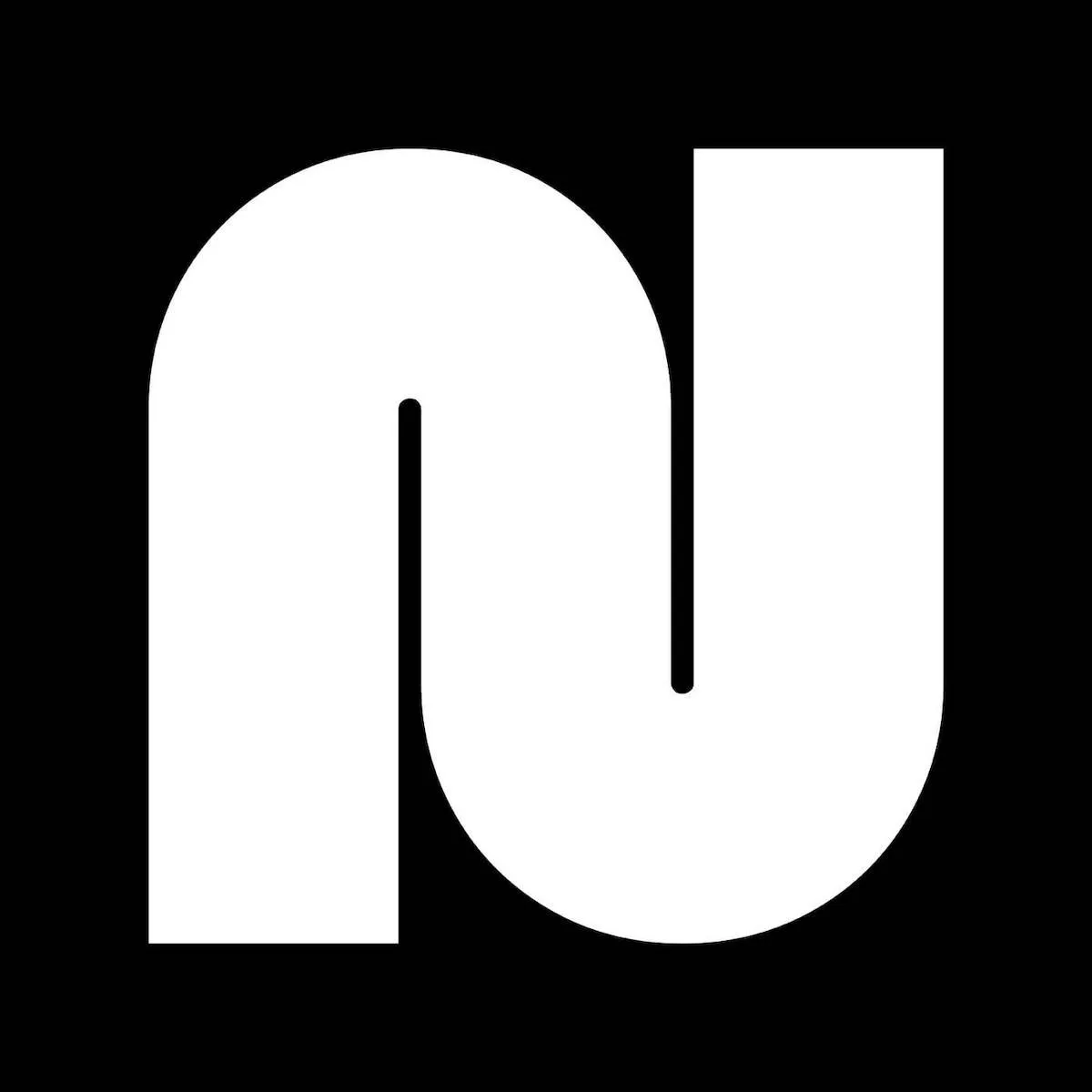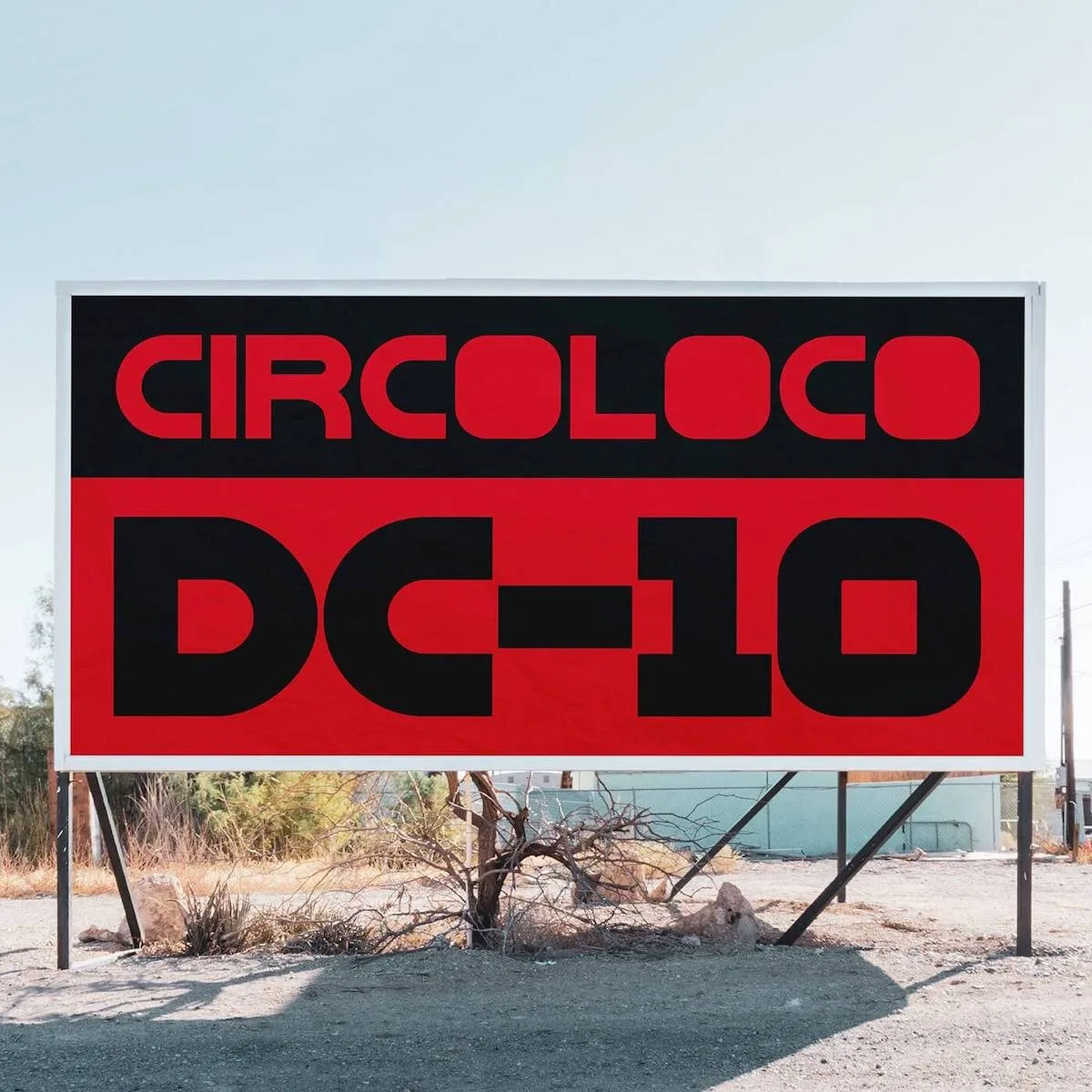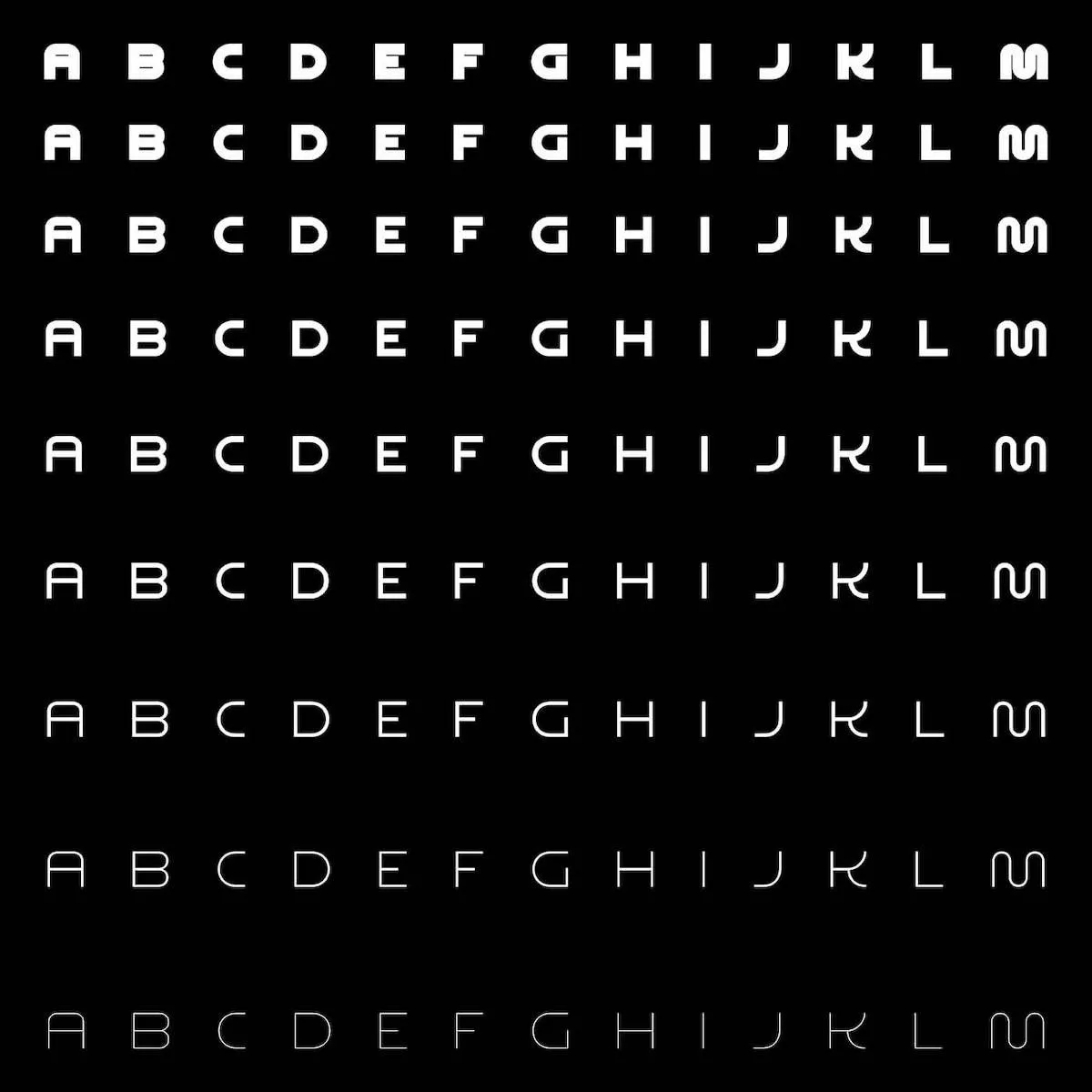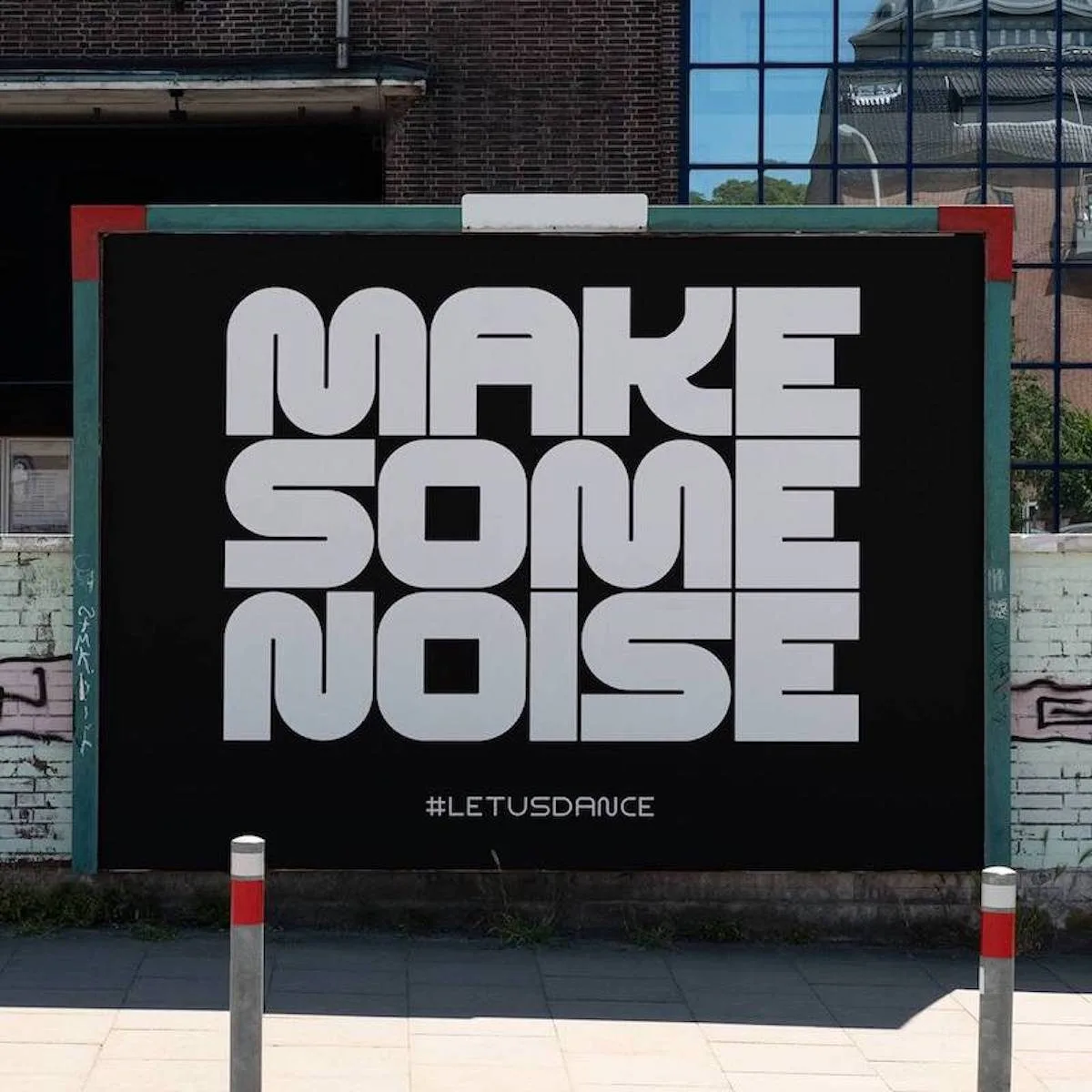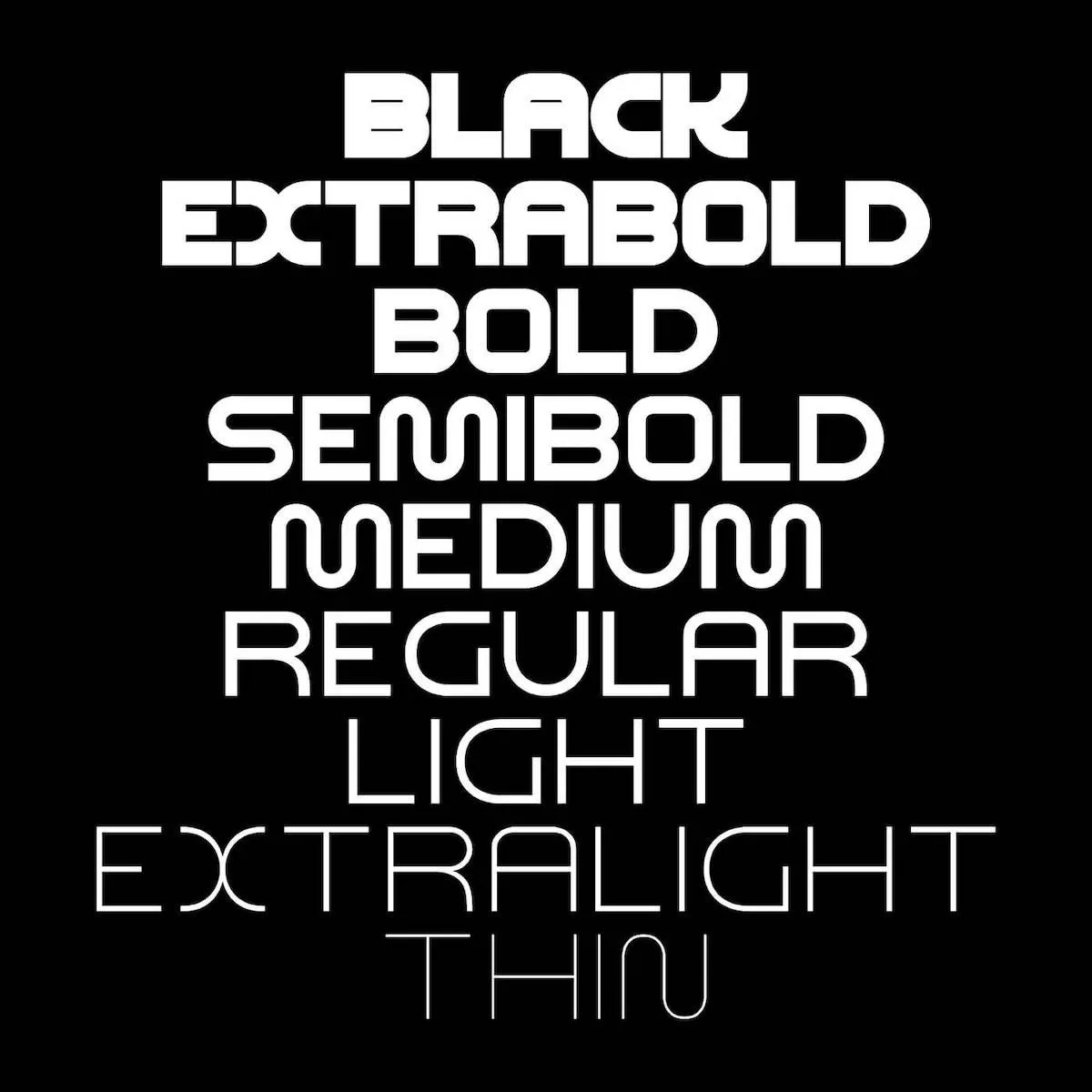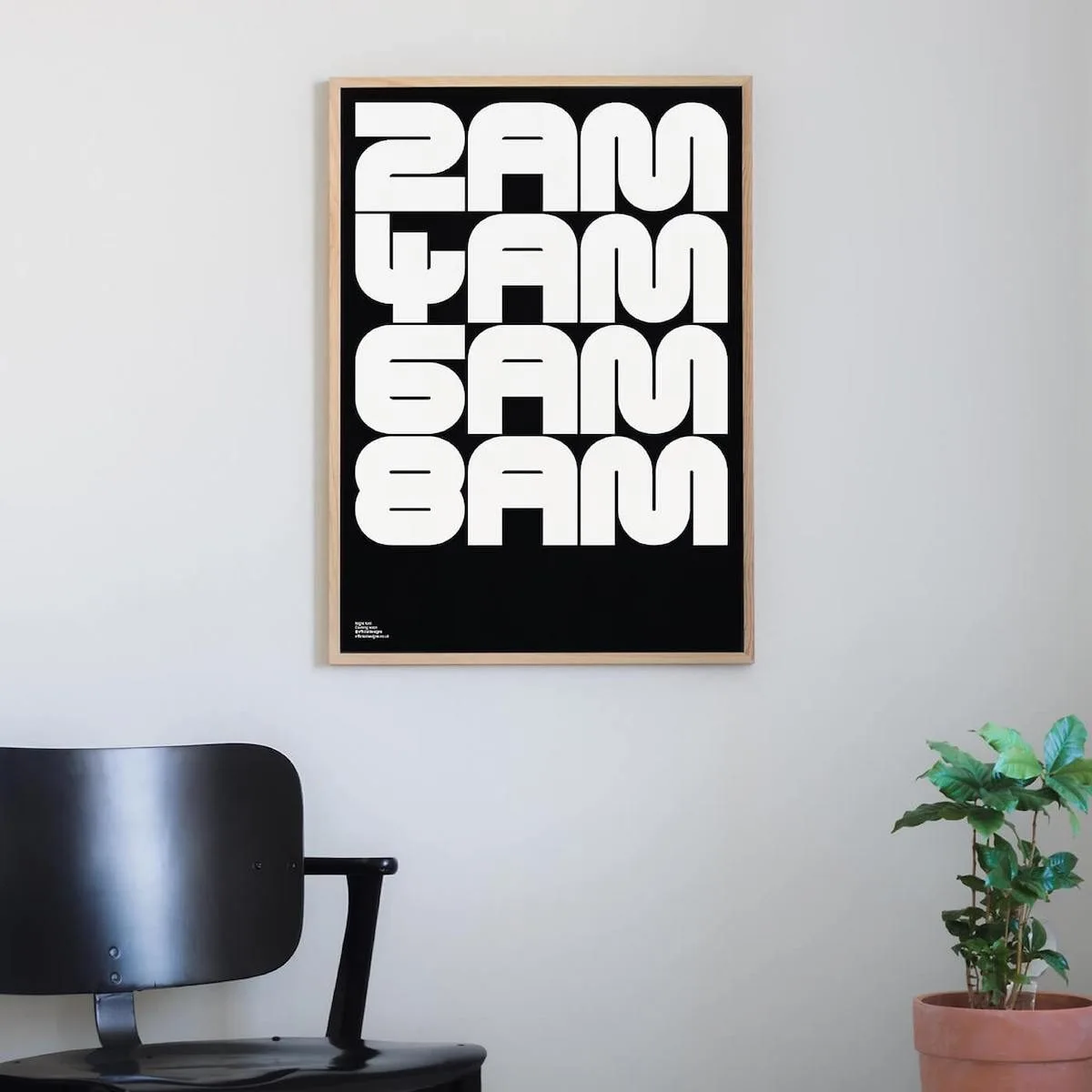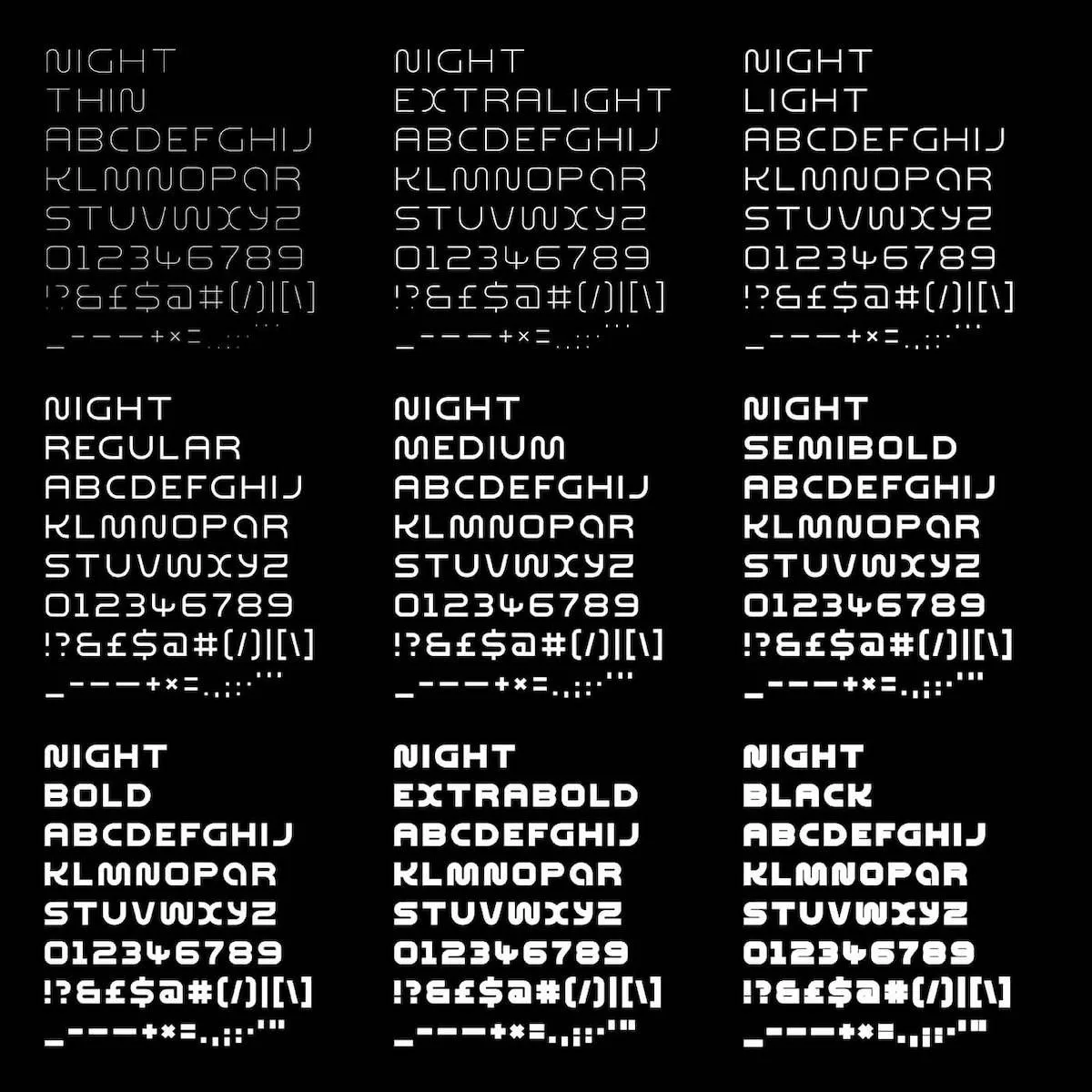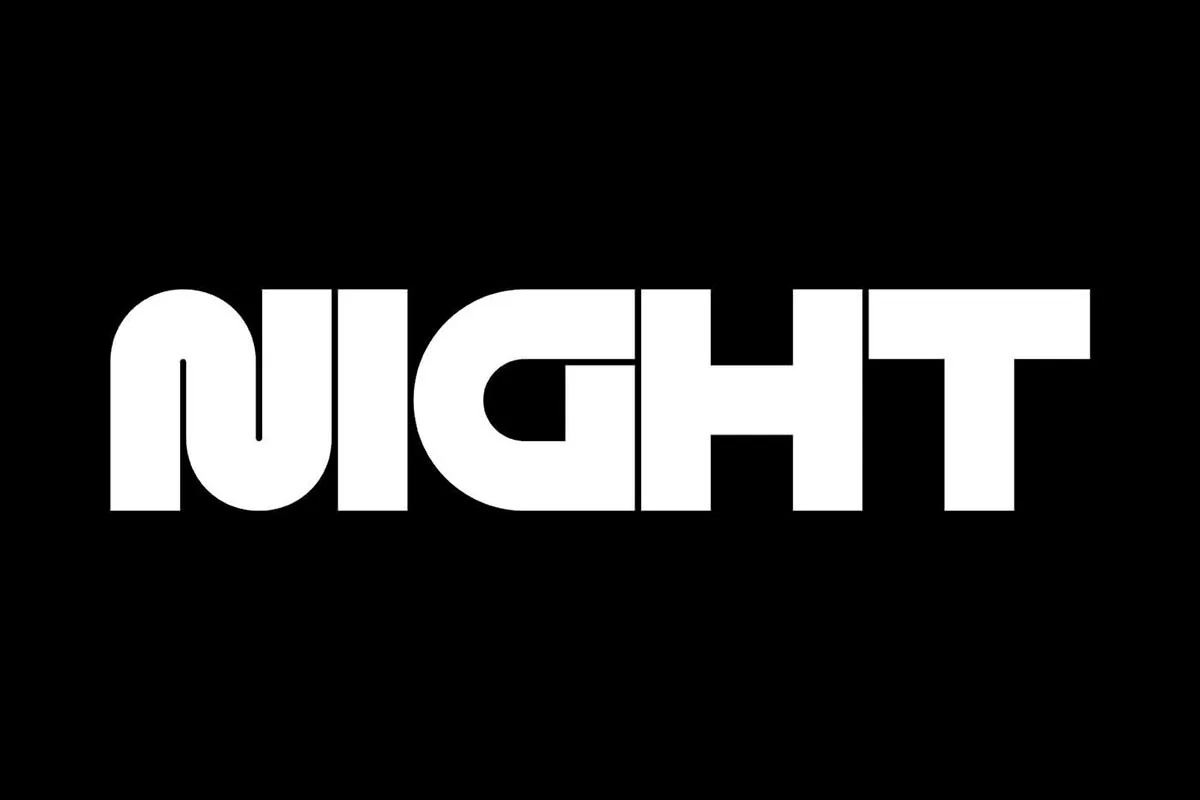
Through nine weight styles, Night Variable Display is an extensive variable font which manifests an exciting future for the visual side of club culture. Created by OFFICIAL Studio, the independent studio of Steven Allen, Night is a font which interacts with other visual and audio elements to elevate the atmosphere in any space.
Night can be linked up to sound and lighting technology, meaning that logotypes and graphics created with the font can be enlivened into a whole new realm. This means visual identities and logotypes created with Night can be brought alive at events, for example, allowing the typography to shine through.
Night has a minimal structure with each glyph designed around shapes and lines all adhering to the same grid. This means Night makes a strong, bold typographic statement, perfect for brands looking for a font to carry them through to the future and set them apart in the market. The font’s nine weights plus variable features also mean Night offers tons of flexibility for deigning across different levels, whilst being supported by punctuation and symbols in body copy settings.
Night is redefining our understanding of what typography can mean to a brand. It offers the tools to create a bold, defining statement alongside the ability to flex across styles and inhabit new dimensions. To see more, check out Type Department.